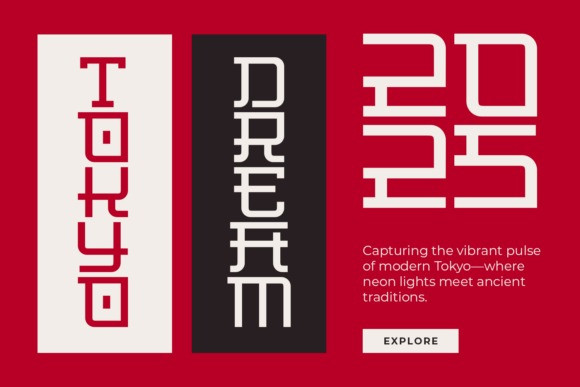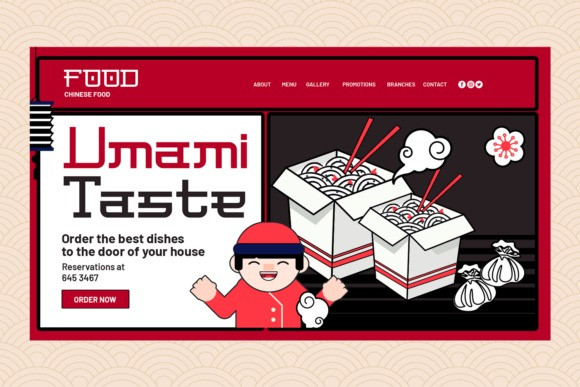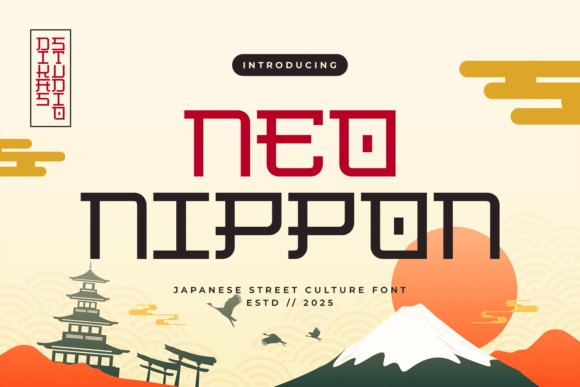
Neo Nippon Font
Neo Nippon Font is a striking sans-serif font that draws inspiration from the bold, angular aesthetics of traditional and modern Japanese design. With its rigid, boxy letterforms and clean structure, this typeface brings a sense of order, strength, and cultural flair to any project.
Perfectly suited for designs that aim to capture the essence of Japan—whether it’s for posters, branding, packaging, or editorial titles—Neo Nippon makes a bold visual statement while remaining clear and readable. Its geometric style and distinctive character shapes give it a unique identity that works well in both modern and traditional Japanese-themed layouts.
Bring the spirit of Nippon to your design work with Neo Nippon—a font that blends simplicity with cultural impact.